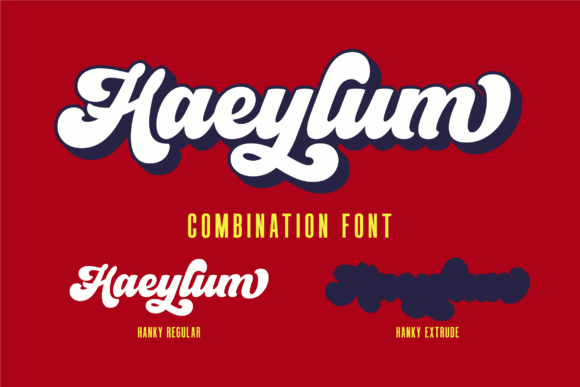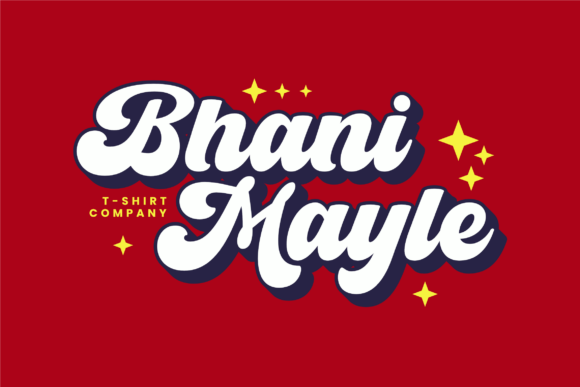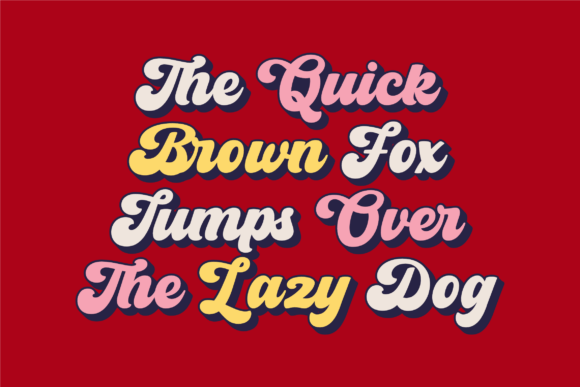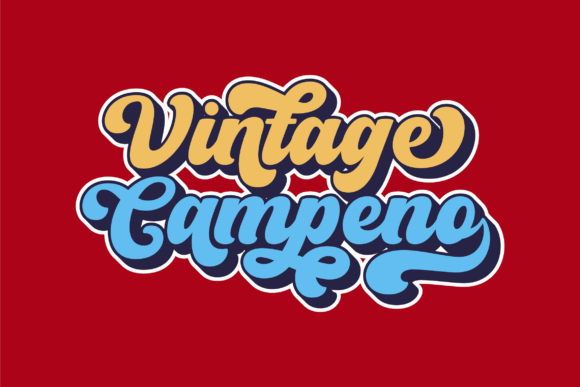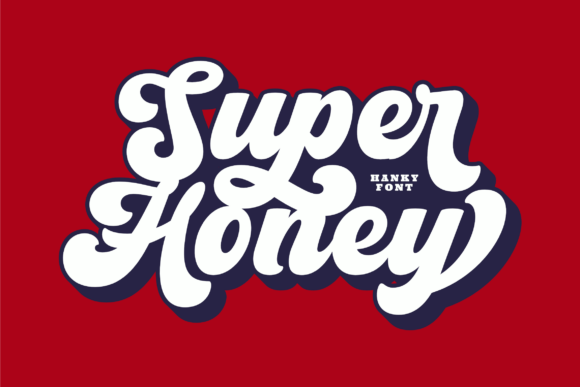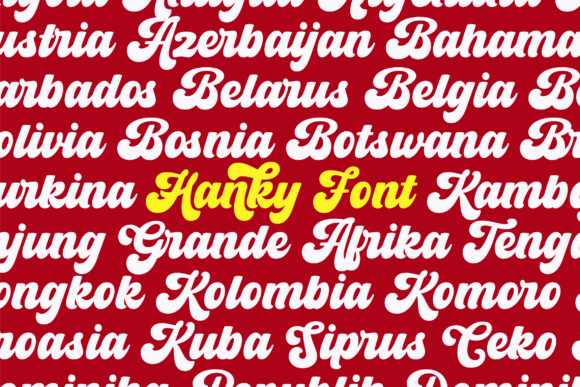
Introduction to Hanky Font
Remember that moment when you stumbled upon the perfect font for your creative project? The one that instantly elevates your design from good to great? That’s exactly what happens when you discover the Hanky Font – a bold, playful script font that’s steeped in vintage charm and versatility.
As a designer, you’re always on the lookout for that special something that sets your work apart from the crowd. And with Hanky Font, you’ve got it. This high-quality font is designed to add a touch of nostalgia and whimsy to any project, from logos and posters to packaging, apparel, and social media graphics.
- High-quality design: The font features intricate details and unique characteristics that set it apart from other fonts.
- Unique characteristics: Hanky Font features a unique blend of modern and vintage elements, making it a standout design resource for creative projects.
Honest Review: Hanky Font
I recently stumbled upon the Hanky Font, and I must say, it’s been a great addition to my design resources. I’ve been using it for a creative project that requires a high quality, yet playful font.
What works well: ✨ The font has a transparent background, which makes it easy to combine with other design elements. It’s also a free download, which is always a bonus for designers on a budget. The Hanky Font is available in a range of weights and styles, making it perfect for a variety of creative projects.
- Perfect for designers looking for a high quality, yet playful font
- Available in multiple weights and styles
However, there are some limitations: ⚠️ The font may not be suitable for projects that require a professional, corporate look. Additionally, some users may find the font too playful or whimsical for certain design projects.
Overall, I’m impressed with the Hanky Font. It’s a great design resource for creative projects, and its transparent background makes it easy to work with. While it may not be suitable for every design project, it’s definitely worth adding to your design arsenal.
Getting the Most Out of Hanky Font
To get the most out of Hanky Font, experiment with different font sizes, colors, and styles to find the perfect combination for your design project. Use the font in conjunction with other design elements to create a visually appealing and cohesive design.
Hanky Font is commonly used in creative projects such as graphic design, branding, and marketing materials. Its high-quality design resource and transparent background feature make it perfect for creating eye-catching graphics and designs.